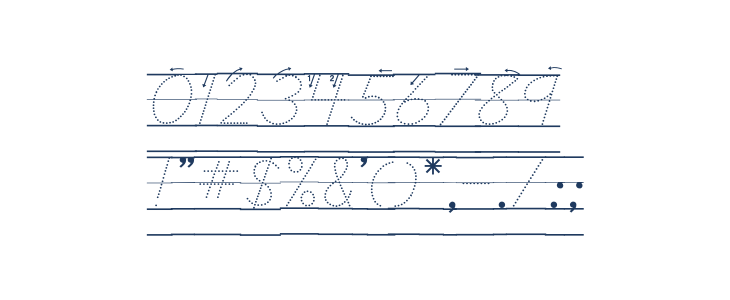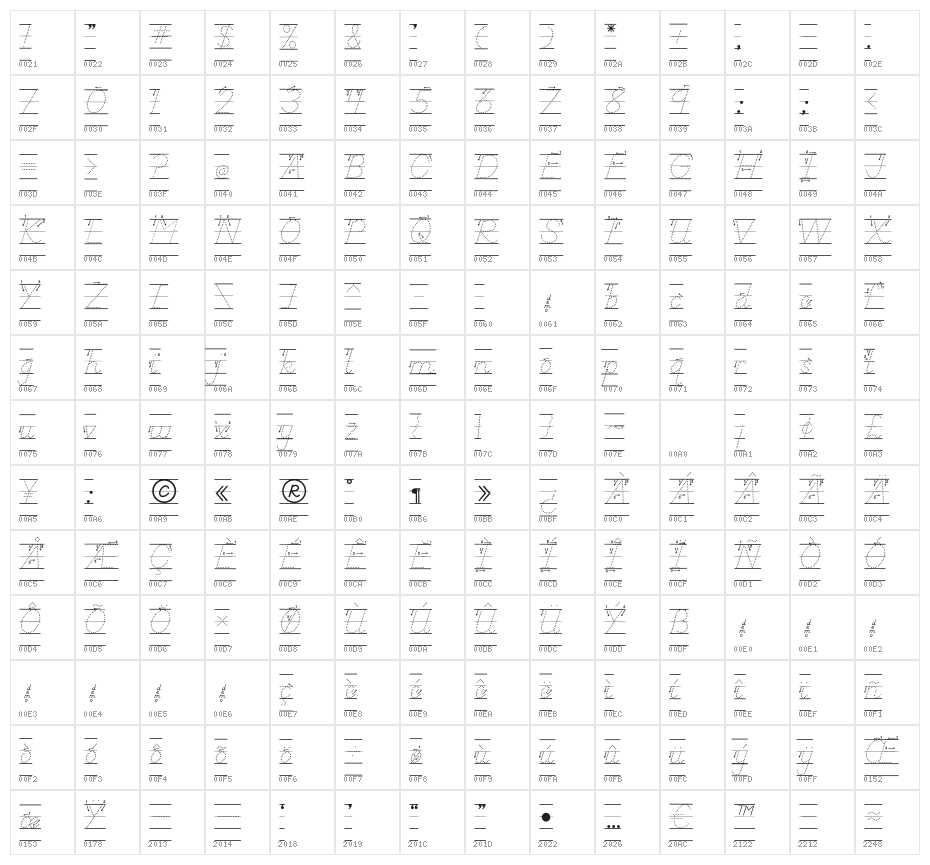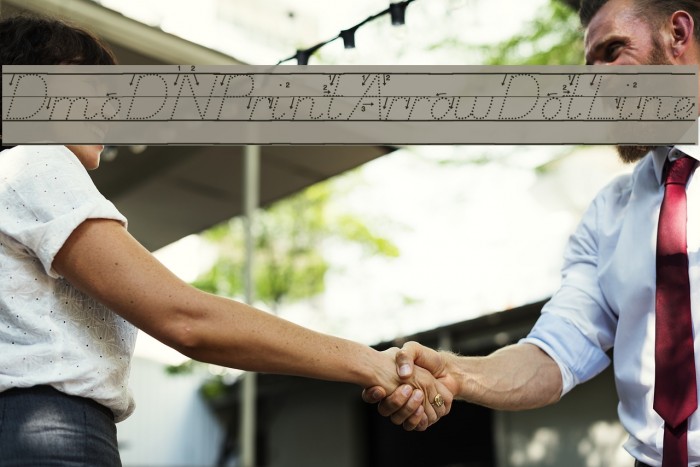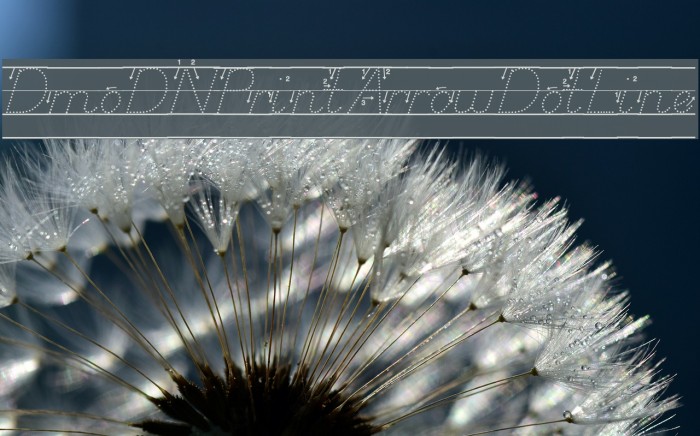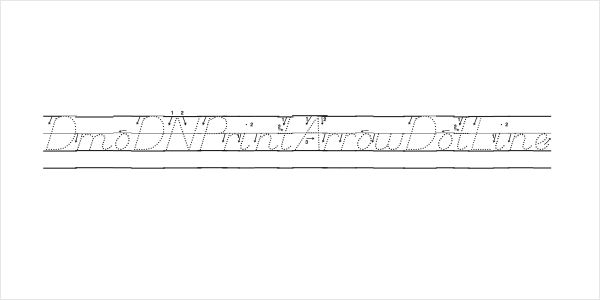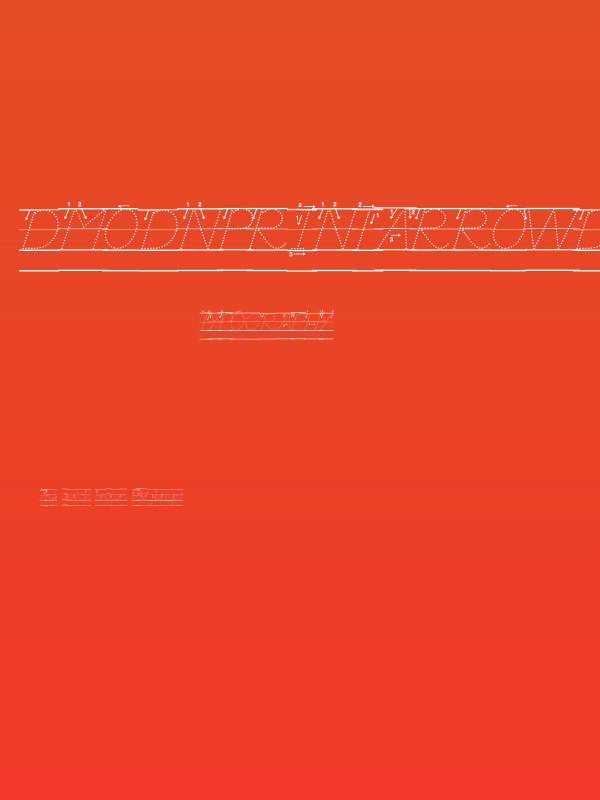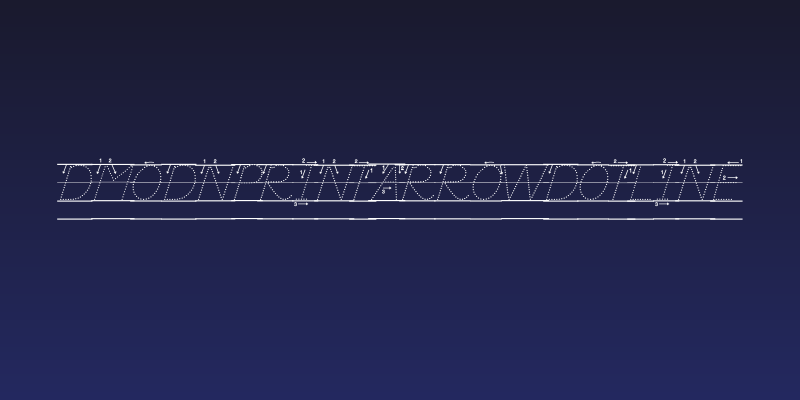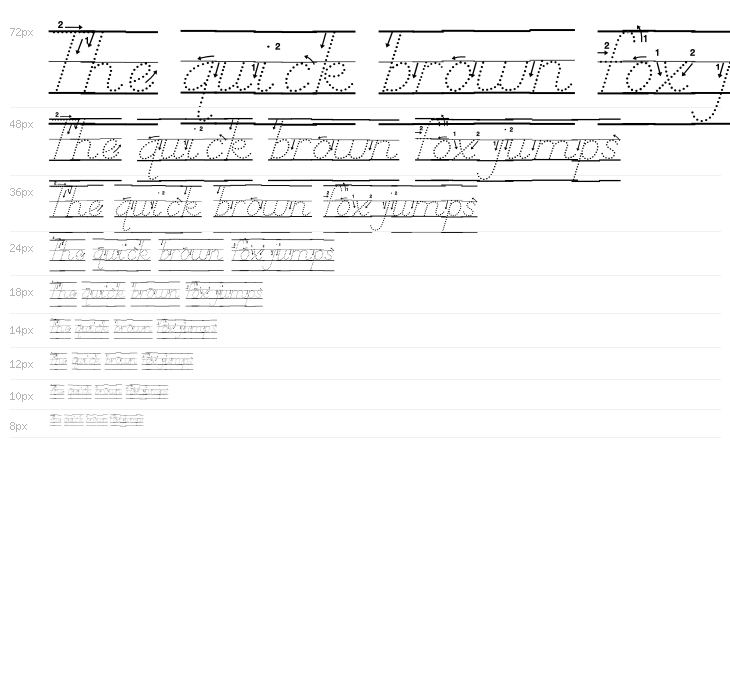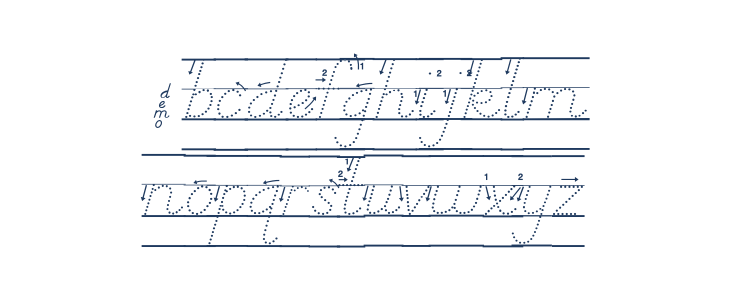
DmoDNPrintArrowDotLine Font
| 分类 | Handwritten |
| 斜体 | Yes |
| 整体风格 | Educational |
| 使用场景 | Handwriting practice, educational materials. |
| 推荐项目 | Ideal for educational materials, handwriting worksheets, and practice books for children or adults learning cursive writing. |